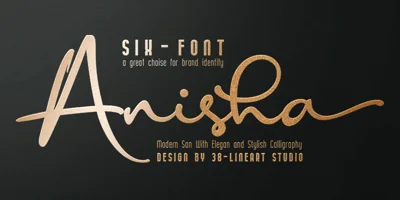
Anisha Font
Anisha Font is ideal for personal branding, lifestyle blogs, wellness centers, spiritual retreats, yoga studios, meditation apps, and mindful living magazines. This graceful typeface embodies tranquility and inner peace, making it perfect for brands that celebrate personal growth, mindfulness, and authentic self-expression.
What makes Anisha Font exciting is its serene combination of gentle sophistication and spiritual elegance that reflects the journey of self-discovery. The font features flowing letterforms with harmonious proportions and subtle curves that create a sense of balance and calm. Its peaceful character resonates with audiences seeking authenticity and mindfulness while maintaining professional credibility for wellness and lifestyle brands.
The Anisha Font family includes multiple weights from light to medium, complete with elegant italic variations and meditative script alternatives. The character set offers spiritual symbols, mindfulness ornaments, yoga-inspired ligatures, and wellness-themed decorative elements. Extended language support includes Sanskrit characters and international symbols for global wellness and spiritual communities.
Whether you're developing wellness brand identities, creating mindful lifestyle content, or designing spiritual retreat materials, Anisha Font provides exceptional serenity and versatility. This inspiring typeface transforms ordinary text into meaningful visual experiences that encourage inner reflection and personal growth while establishing authentic connections in the expanding wellness and mindfulness marketplace.